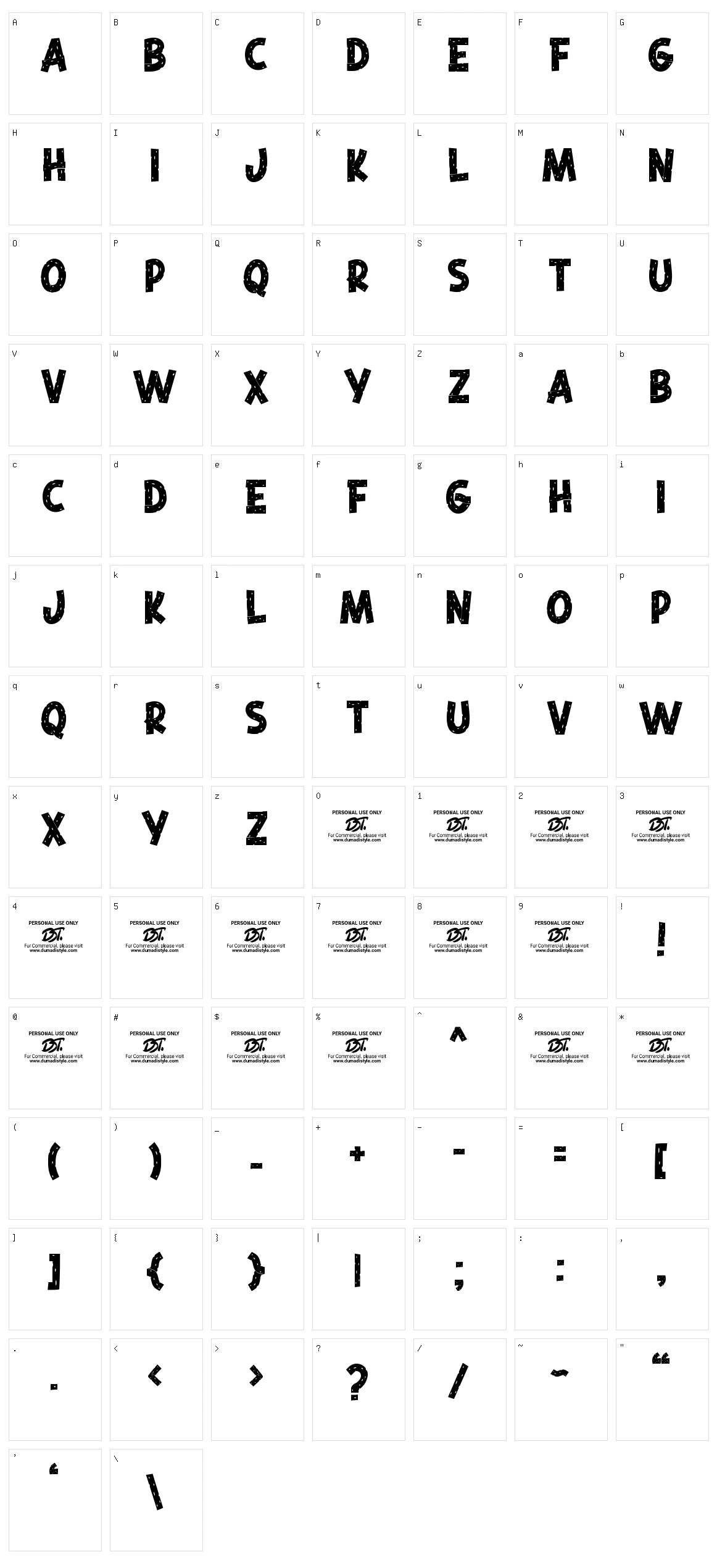
The free font Blotchy Bitter is carefully designed by DumadiStyle, showcasing a thoughtful balance of creativity and usability and falls under the Cartoon font style. When you download the ZIP file, it contains only 3406.79 KB of font files, making it lightweight and quick to download. Please review the license details below to understand permitted usage and distribution rights. If license information is not available, we recommend using this font for personal projects only or contacting the author directly for commercial usage permissions.